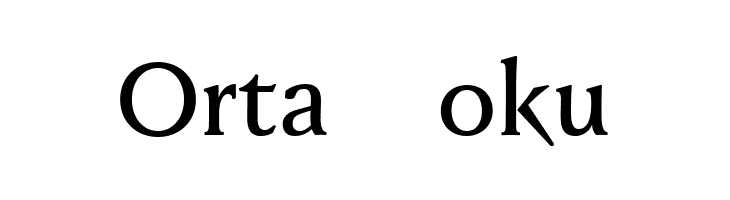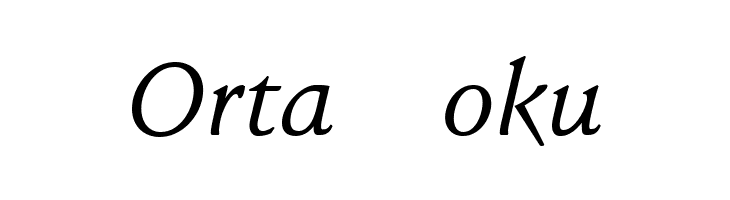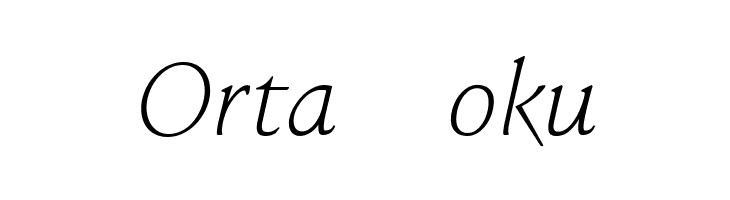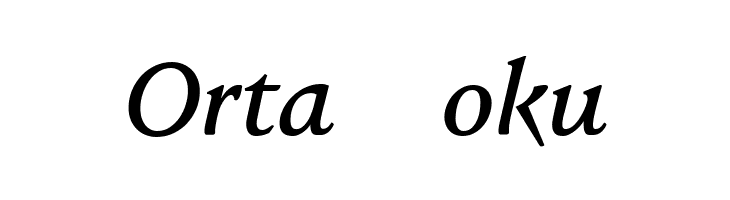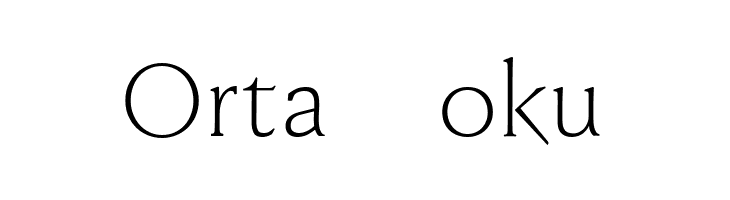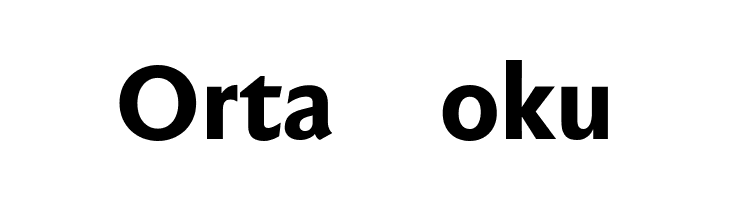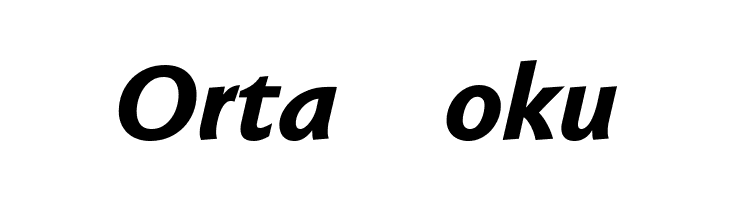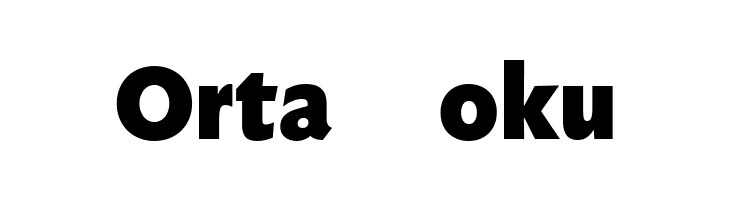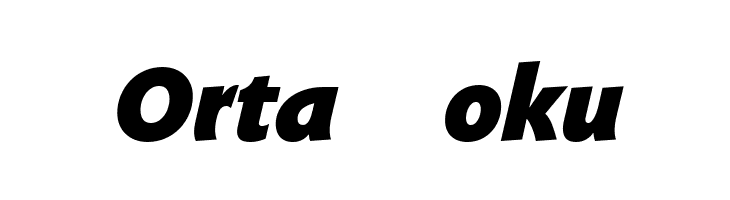
• Faber Sans Std 85 Schwer
A bold, modern sans-serif font with clean lines and excellent readability.
• Faber Sans Std 86 Schwer Kursiv
A bold, italic sans-serif font with a modern and dynamic style.
• Faber Sans Std 95 Fett
A bold, modern sans-serif font with uniform strokes and high legibility.
• Faber Sans Std 96 Fett Kursiv
Bold, italic sans-serif font with a modern and dynamic style.
• Faber Serif Reduced 45 Leicht
A classic serif font with elegant thin strokes and subtle curves.
• Faber Serif Reduced 46 Leicht Kurs
A light, elegant serif font with a slight italic slant and classic charm.
• Faber Serif Reduced 55 Normal
A classic serif font with elegant strokes and moderate contrast.
• Faber Serif Reduced 56 Kursiv
An elegant serif font with a classic italic slant, perfect for sophisticated designs.
• Faber Serif Reduced 65 Kräftig
A classic serif font with pronounced serifs and moderate contrast, ideal for formal use.
• Faber Serif Reduced 66 Kräftig Kur
A classic serif font with elegant italics and moderate contrast.